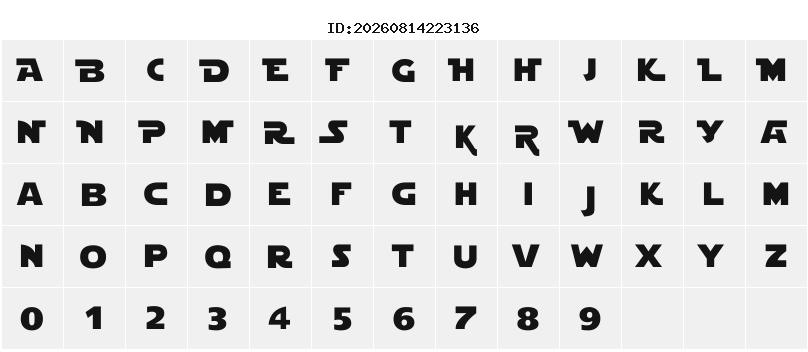
StarJedi Special Edition Preview
• Font Name: StarJedi Special Edition
• Full Font Name: StarJedi Special Edition
About StarJedi Special Edition.ttf
StarJedi Special Edition.ttf is a modern, elegant sans-serif font designed for ultimate readability and visual harmony. Perfect for branding, headlines, web design, and print materials.